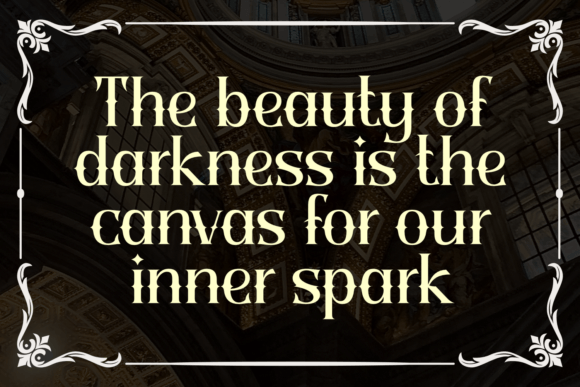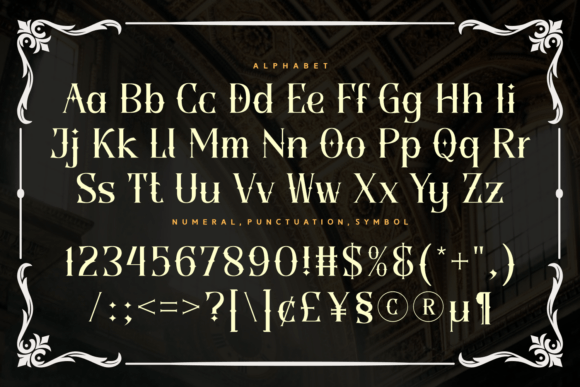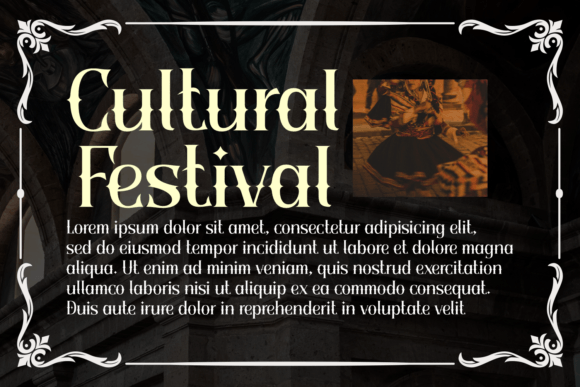
Introduction to Black Dream Font
Black Dream is a striking blackletter font, blending gothic elegance with modern flair.
Its sharp edges and intricate details evoke medieval manuscripts, perfect for creating dramatic logos, posters, and branding Ideal for projects needing bold, expressive typography with a touch of vintage sophistication.